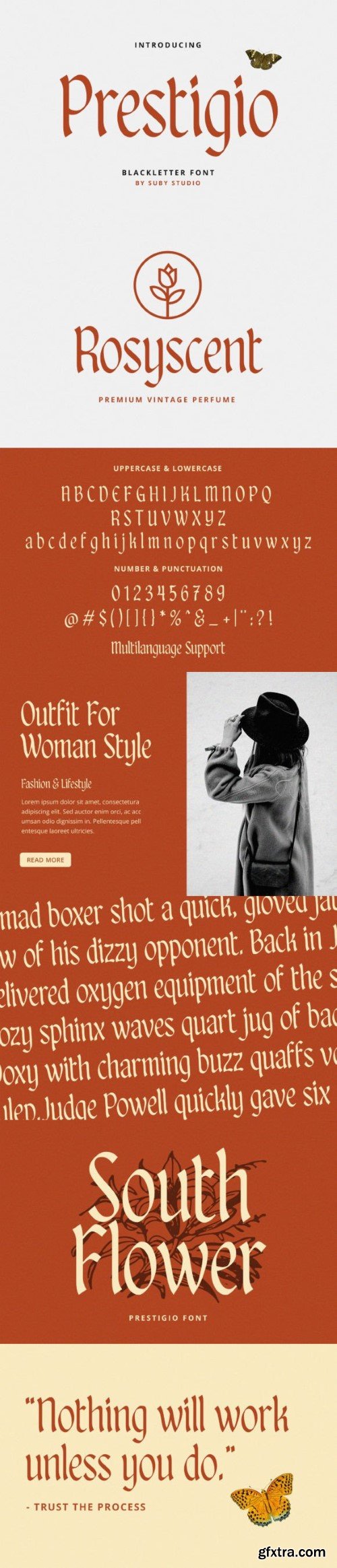
Prestigio Font
Prestigio is a font inspired by Blackletter typeface. Its modern and stylish that will make your project more stunning. You can use to make logotype, apparel design, quotes, wedding designs, social media posts, product packaging, labels, photography, posters, and others